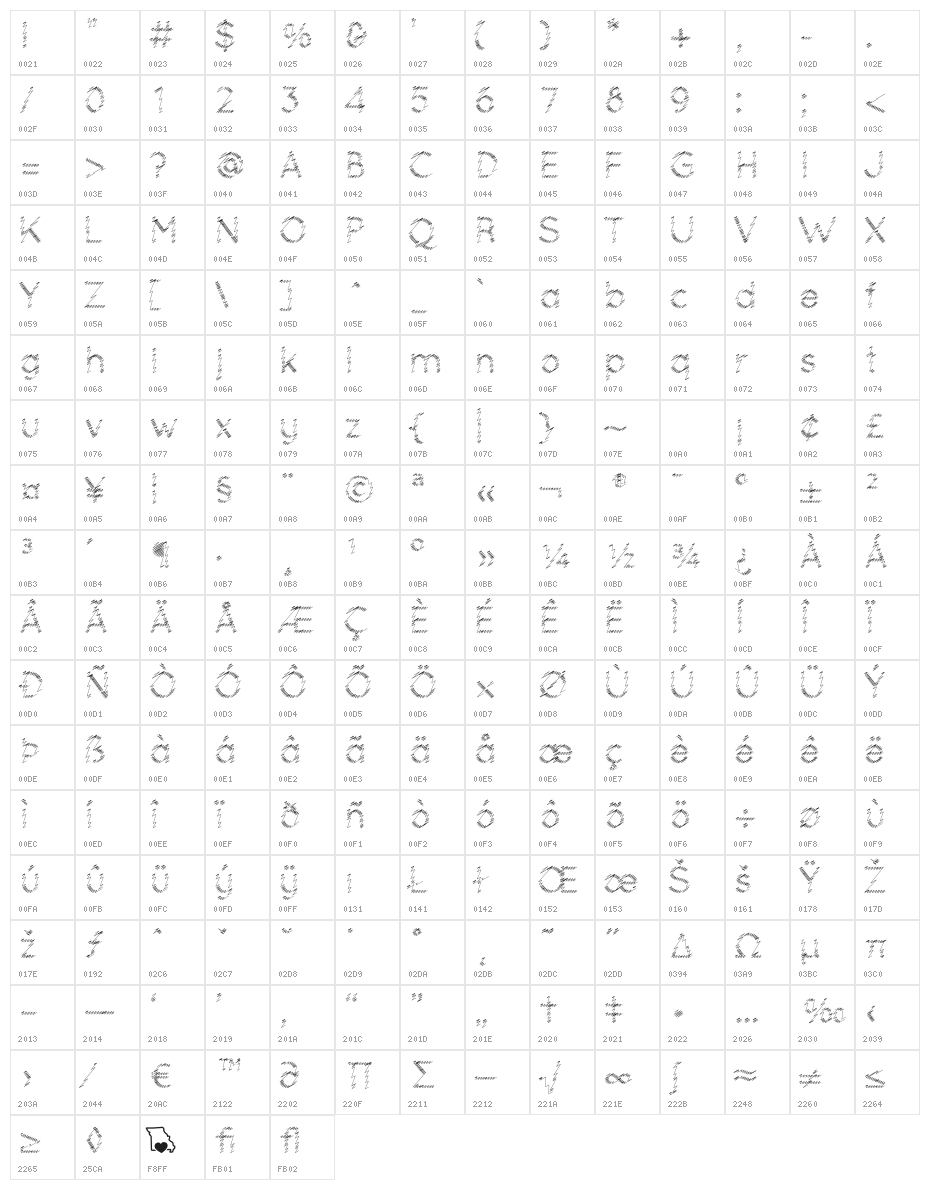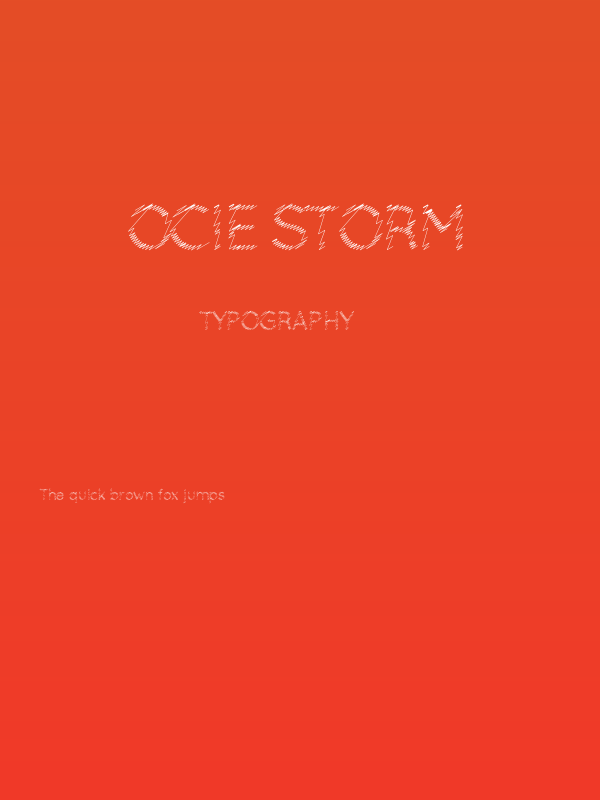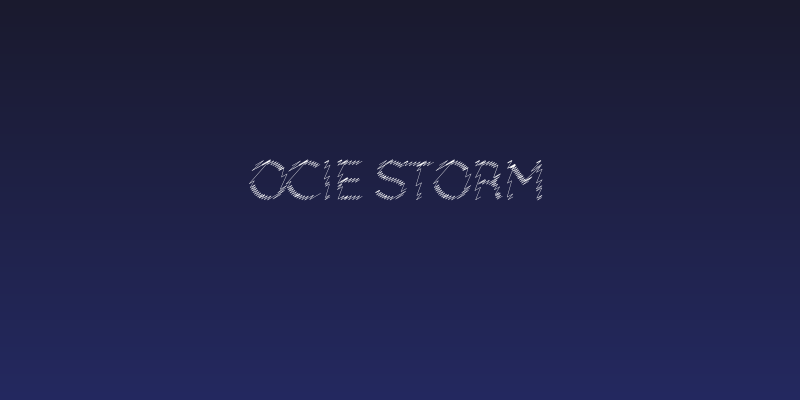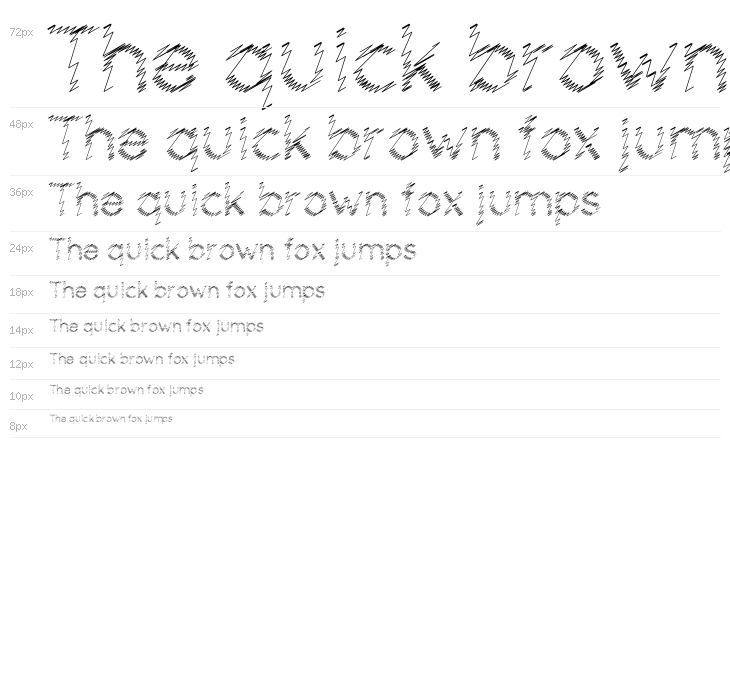
Ocie Storm Font
Ocie Storm Description
This font features a dynamic and energetic design, characterized by its zigzag, lightning bolt-like strokes that create a sense of movement and excitement. The letters are composed of diagonal lines that intersect, giving a sketch-like appearance. The uppercase and lowercase letters maintain a consistent style, with each character appearing as if it has been hand-drawn with a quick, energetic motion. The numbers and special characters follow the same design principles, ensuring a cohesive look across all elements. This font's unique style makes it stand out, offering a bold and unconventional aesthetic.
Proposed ProjectsIdeal for projects that require a bold, eye-catching design such as posters, album covers, or branding for energetic and youthful brands.